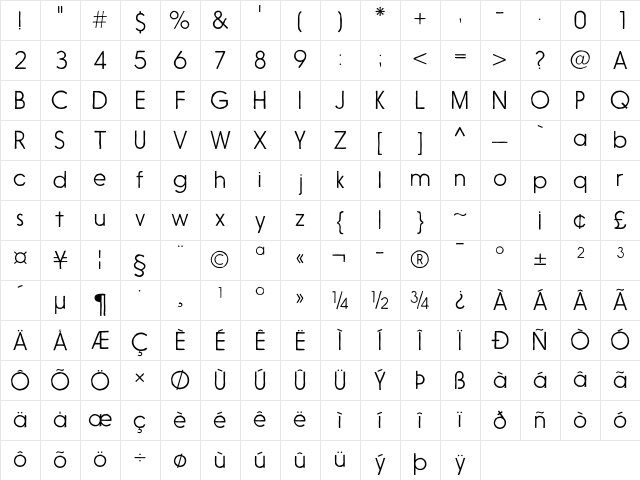
Nanami HM Solid ExtraLight Free Font
Nanami HM Solid ExtraLight
Style: ExtraLight
Foundry: Thinkdust
Designer: Alex Haigh
Design Context for Nanami HM Solid
Nanami HM Solid is a composed and adaptable typeface that performs quietly and consistently across a wide range of design contexts. Its slender proportions lend an understated elegance to any composition.